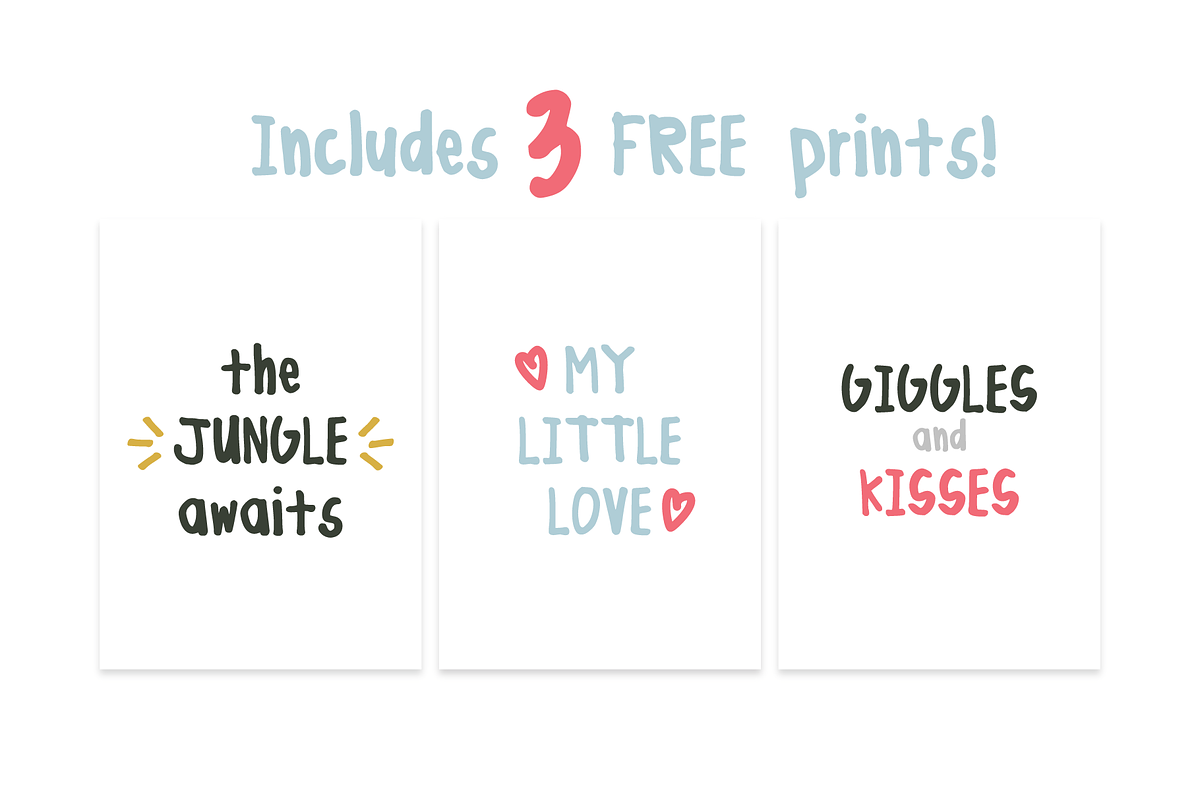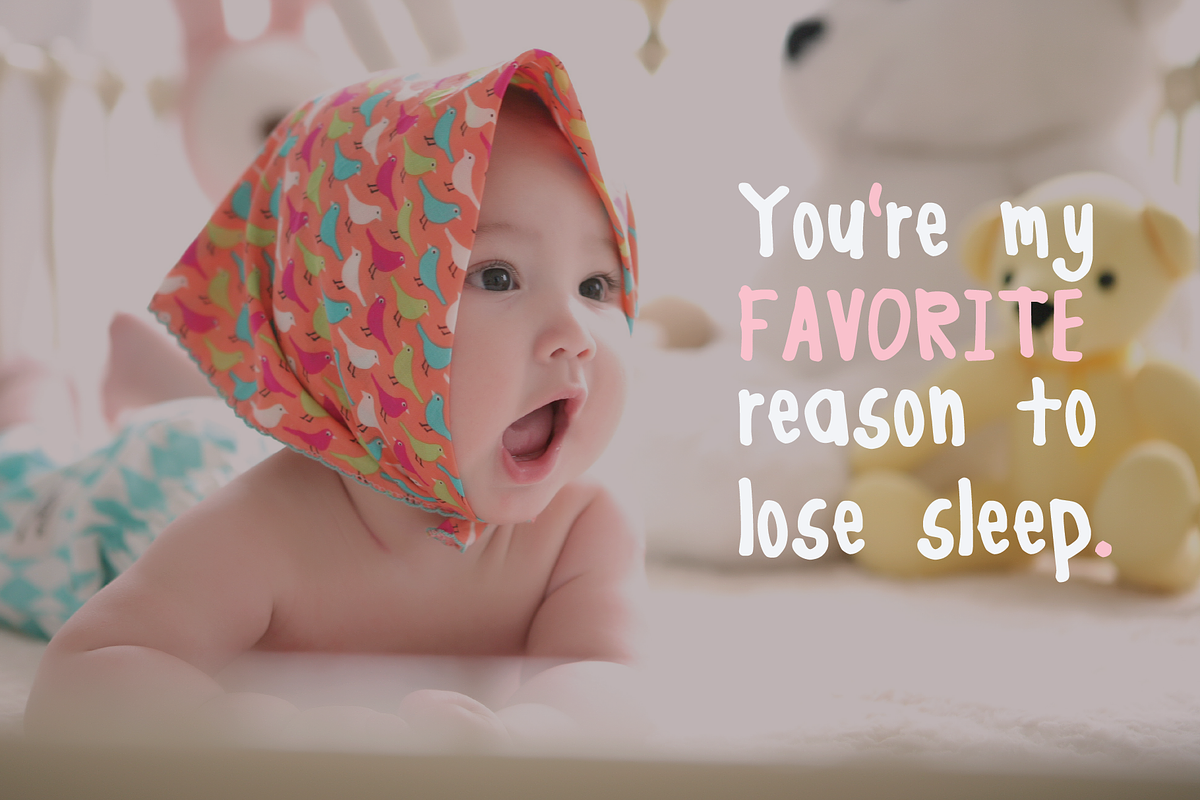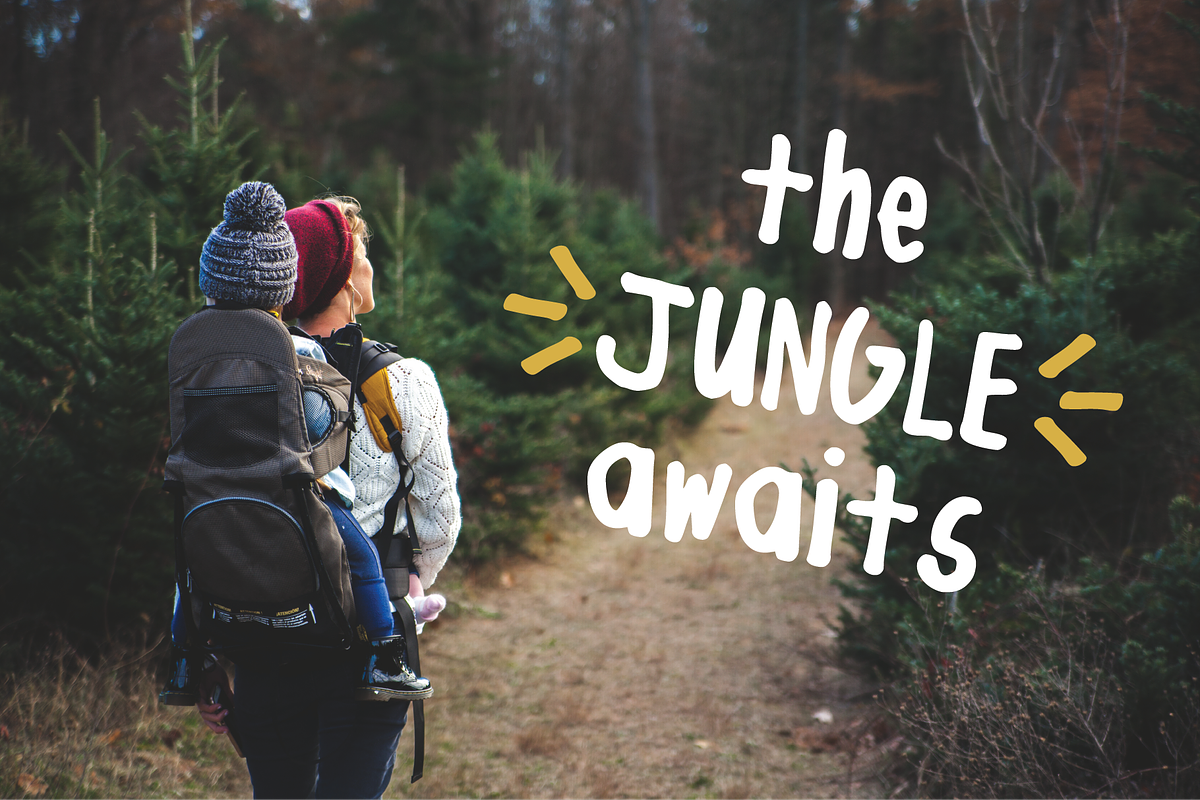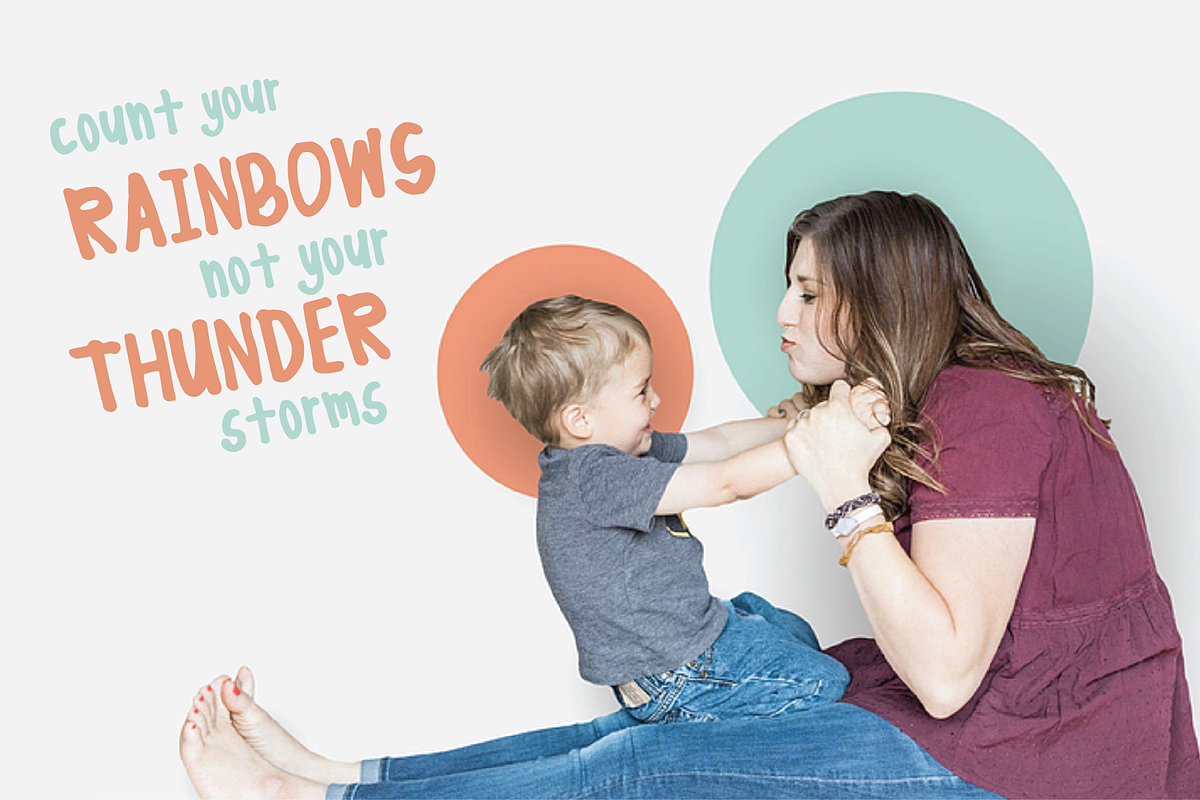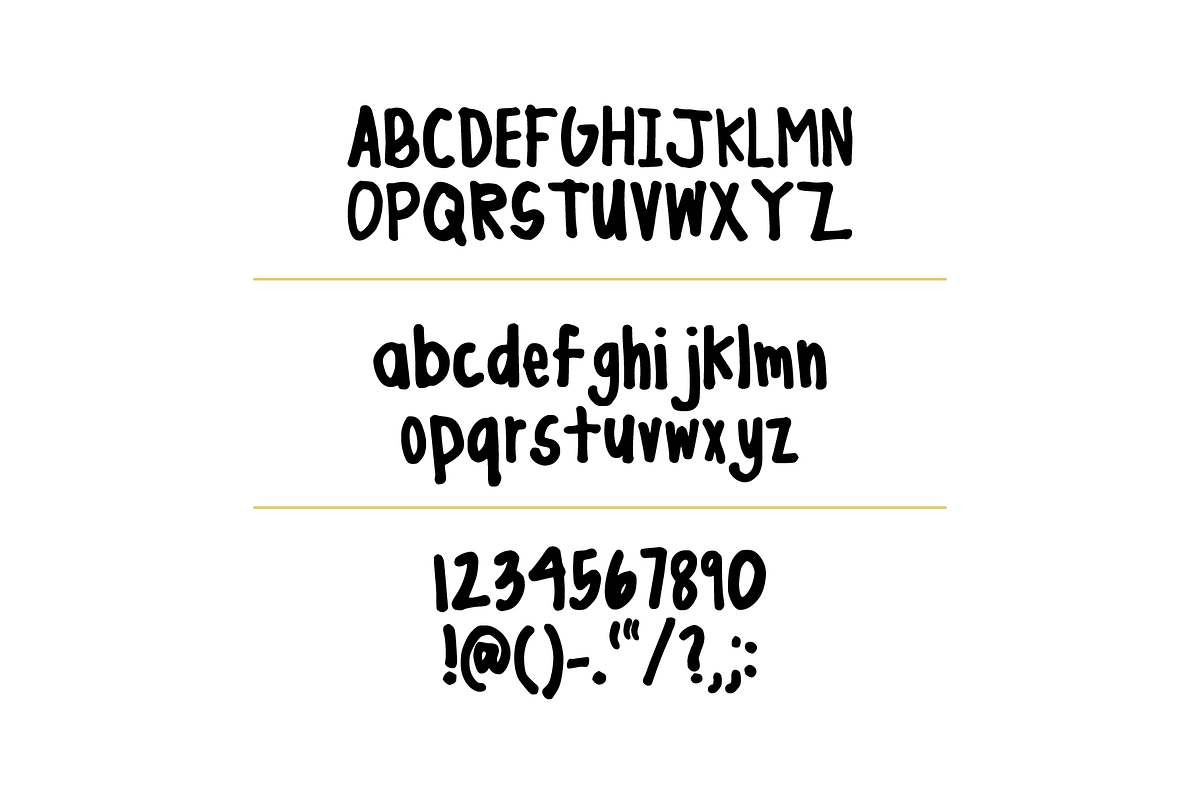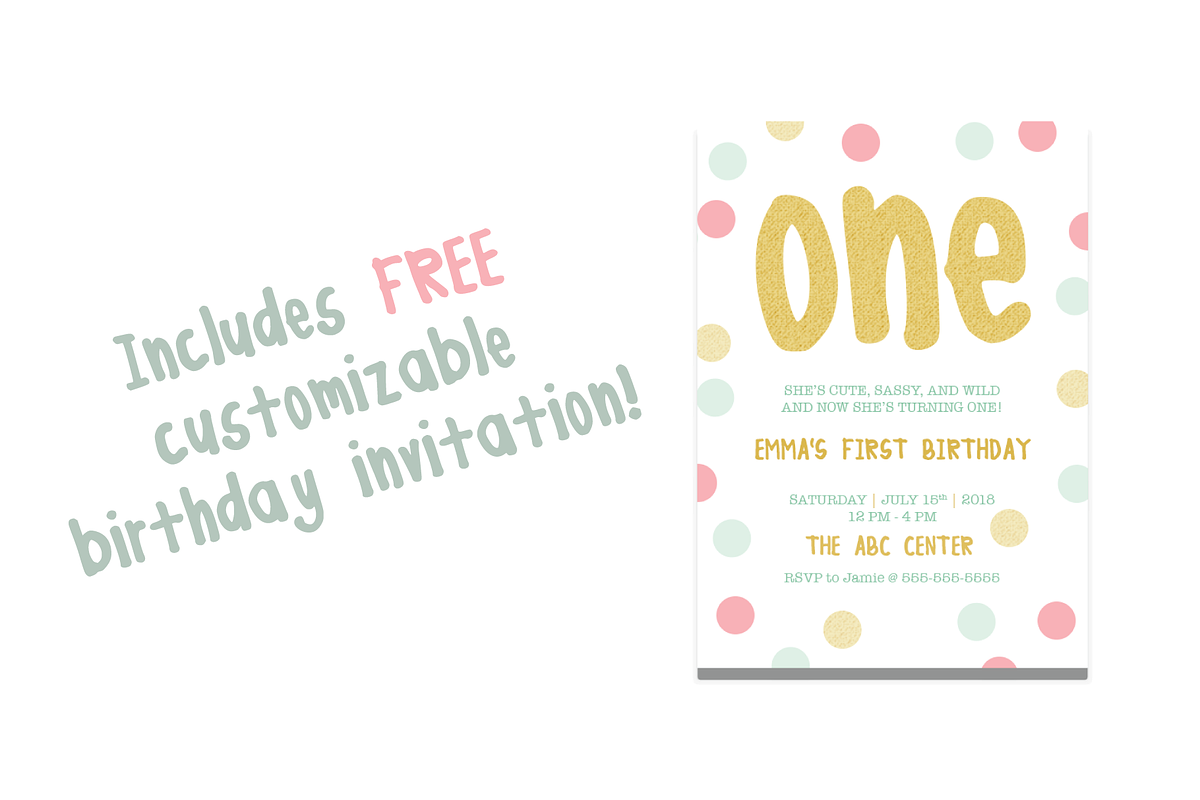
Little Love - Cute Handwritten Font
A cute and fun handmade font for the crafty child inside all of us. Perfect for designing prints for a children's room, invitations for birthday parties, quotes for social media, t-shirts, and more!
Upper and lower case characters
Numbers and punctuation characters